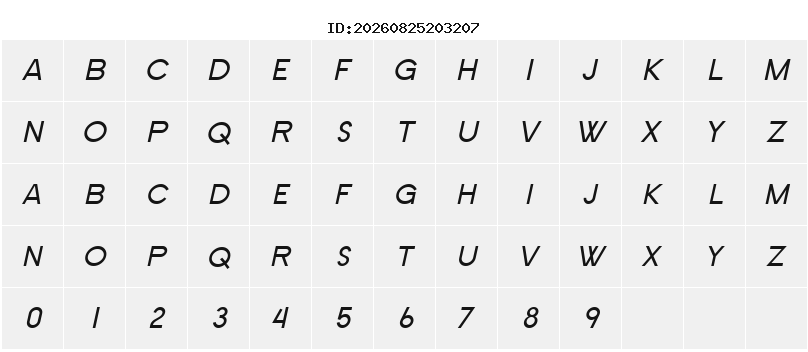
SF Old Republic SC Preview
• Font Name: SF Old Republic SC
• Full Font Name: SF Old Republic SC Italic
About SF Old Republic SC.ttf
SF Old Republic SC.ttf is a modern, elegant sans-serif font designed for ultimate readability and visual harmony. Perfect for branding, headlines, web design, and print materials.